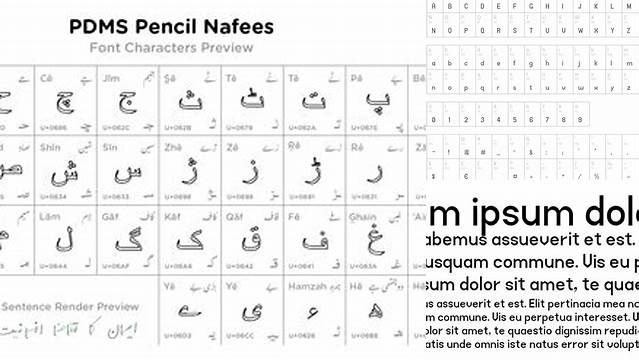
Hey guys! Looking for that perfect Arabic calligraphy vibe? The Pencil Nafees font might just be your new best friend. This font is super popular for its elegant and readable style, making it a go-to for tons of designers and creatives. So, let's dive into everything you need to know about the Pencil Nafees font and, most importantly, how to snag it for free! In this comprehensive guide, we'll explore the ins and outs of Pencil Nafees font, ensuring you get all the details to make the most of it. We're talking about where to download it, how to install it, and even some creative ways you can use it in your projects. Trust me, by the end of this article, you'll be a Pencil Nafees pro!
Understanding Pencil Nafees Font
Before we jump into the nitty-gritty of downloading and installing, let's get a handle on what makes the Pencil Nafees font so special. Understanding its characteristics and history will help you appreciate its unique charm and use it effectively in your designs. Knowing the details behind this font will not only enhance your design skills but also help you appreciate the artistry involved in creating such a versatile tool. So, stick around as we delve into the fascinating world of Pencil Nafees font.
What is Pencil Nafees Font?
Pencil Nafees is a stunning Arabic typeface known for its graceful curves and clear legibility. It's designed to mimic the fluidity of handwriting, making it perfect for projects that need a touch of elegance and authenticity. The Pencil Nafees font stands out because of its unique blend of traditional calligraphy and modern design principles. The font's calligraphic roots give it an artistic flair, while its clarity ensures readability across various applications, from digital screens to printed materials. This balance makes it a favorite among designers working on projects that need to convey sophistication and cultural richness.
History and Origin of Pencil Nafees
The Pencil Nafees font has a rich history, deeply rooted in traditional Arabic calligraphy. Knowing its origins helps you understand its nuances and how to best use it in your designs. The design principles used in creating this font are a testament to the centuries-old tradition of Arabic calligraphy. Its historical context is essential for designers who want to use it respectfully and effectively in their work. Understanding the history and origin of the Pencil Nafees font adds a layer of depth to your appreciation and usage of it.
Key Characteristics of Pencil Nafees Font
What makes Pencil Nafees stand out from other Arabic fonts? It's all about those unique characteristics! The font's key attributes include its graceful curves, balanced letterforms, and excellent readability, even at smaller sizes. Each character in the Pencil Nafees font is carefully crafted to maintain a consistent flow and aesthetic appeal. The smooth, flowing lines mimic the natural movement of a calligrapher's hand, giving it a personal and artistic touch. Its readability stems from the thoughtful design of each glyph, ensuring that words and sentences are easily legible, whether on screen or in print. These characteristics make it a versatile choice for a wide range of design projects.